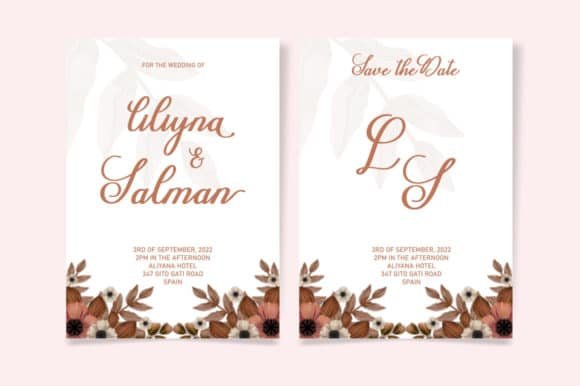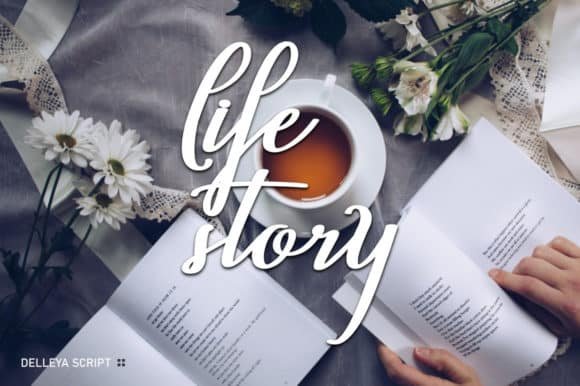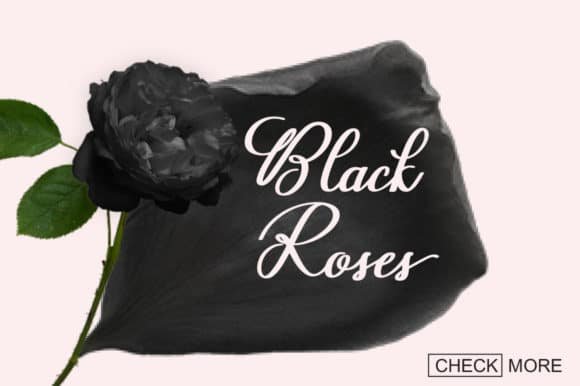
Delleya is a superbly carved handwritten font. Cursive and stylish, this font would make a wonderful addition to your font library, as it can enhance the look of any creative idea! This font is PUA encoded, which means you can access all of the glyphs and swashes with ease!